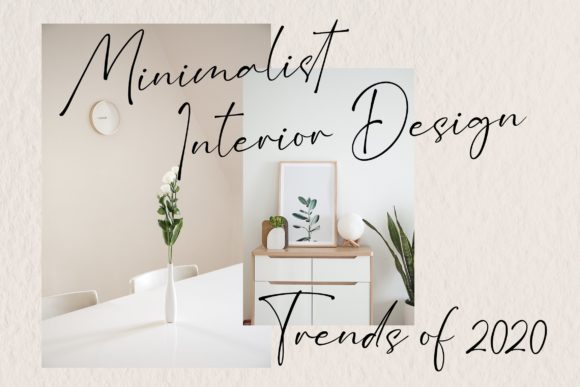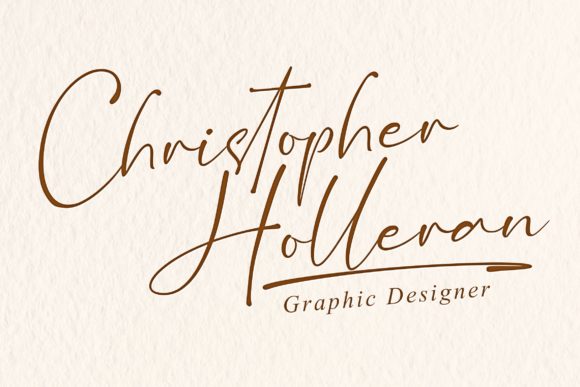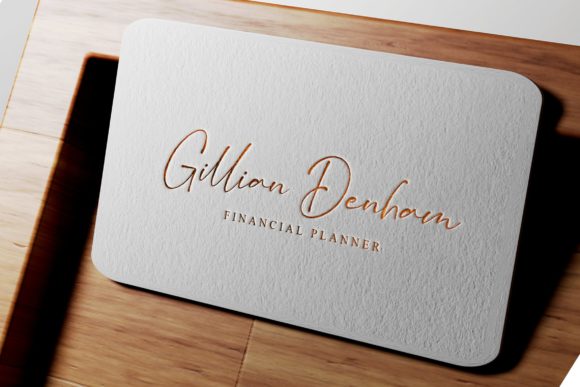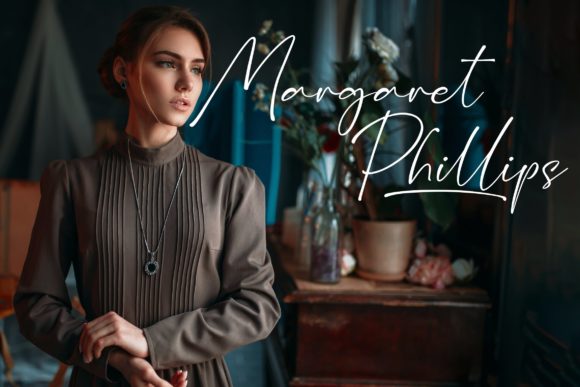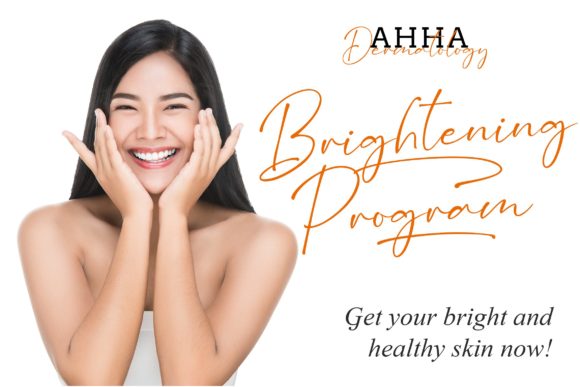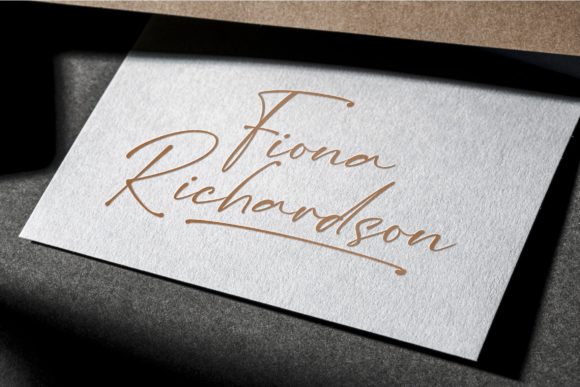
Introducing Amstajul Bafett Font: The Perfect Choice for Elegant Designs
Are you a designer or crafter looking for a font that exudes elegance and sophistication? Look no further than Amstajul Bafett Font! This beautiful script font is perfect for a variety of design projects, from wedding invitations and stationery to social media posts and product packaging.
A Dainty and Delicate Script Font
Amstajul Bafett Font is a dainty and delicate script font that is sure to add a touch of elegance to any design project. Its intricate and flowing lines make it perfect for designs that require a high level of sophistication and refinement. Whether you’re creating wedding invitations, greeting cards, or social media posts, this font is sure to impress.
Amstajul Bafett Font is incredibly versatile and can be used for a wide range of design projects, including:
- Photography and social media posts
- Product packaging and labeling
- And much more!
One of the best features of Amstajul Bafett Font is that it is PUA (Private Use Area) encoded. This means that you can access all of the glyphs and swashes with ease, making it simple to customize your designs and add your own personal touch.
PUA encoding is a system that allows font designers to include additional characters and glyphs in their fonts. This means that you can access a wide range of special characters, swashes, and other design elements that can be used to enhance your designs.
Benefits of Using Amstajul Bafett Font
There are many benefits to using Amstajul Bafett Font in your design projects. Some of the most significant advantages include:
- Elegant and sophisticated designs
- Incredibly versatile and can be used for a wide range of projects
- Perfect for designers and crafters who want to add a touch of elegance to their designs
- Use it for headlines and titles to add a touch of elegance
- Pair it with other fonts to create a unique and interesting design
Amstajul Bafett Font is a beautiful and elegant script font that is perfect for designers and crafters who want to add a touch of sophistication to their designs. With its intricate and flowing lines, PUA encoding, and versatility, this font is sure to be a favorite among designers and crafters. Whether you’re creating wedding invitations, social media posts, or product packaging, Amstajul Bafett Font is the perfect choice.